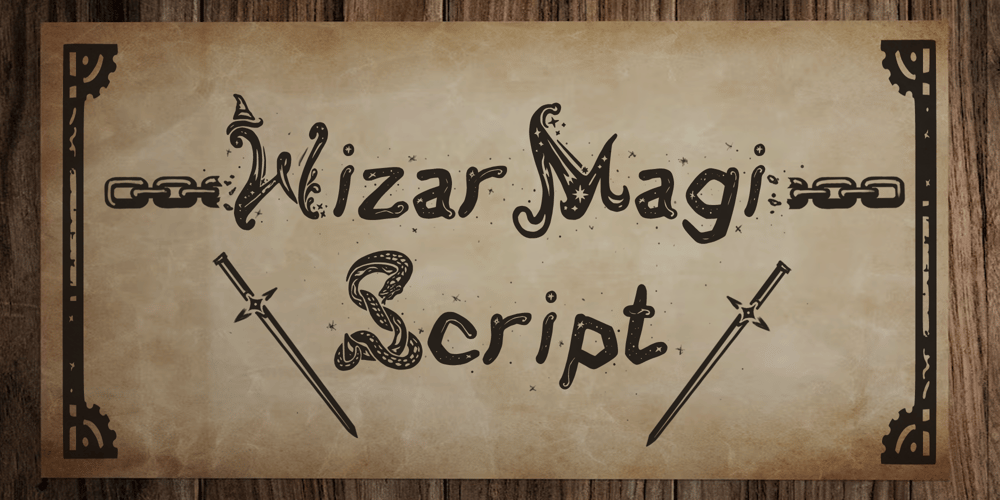
WizarMagi Script Font Family was designed by Ililion Leon Bravo Lemes and published by Ililion. WizarMagi Script contains 1 styles and family package options. WizarMagi Script is a font design with a variety of fantasy and magic styles. The font features a unique customization for each uppercase letter, and a magical glitter style for the lowercase letters. It has accentuation in both uppercase and lowercase. Can be used for a variety of designs, limited only by your creativity.